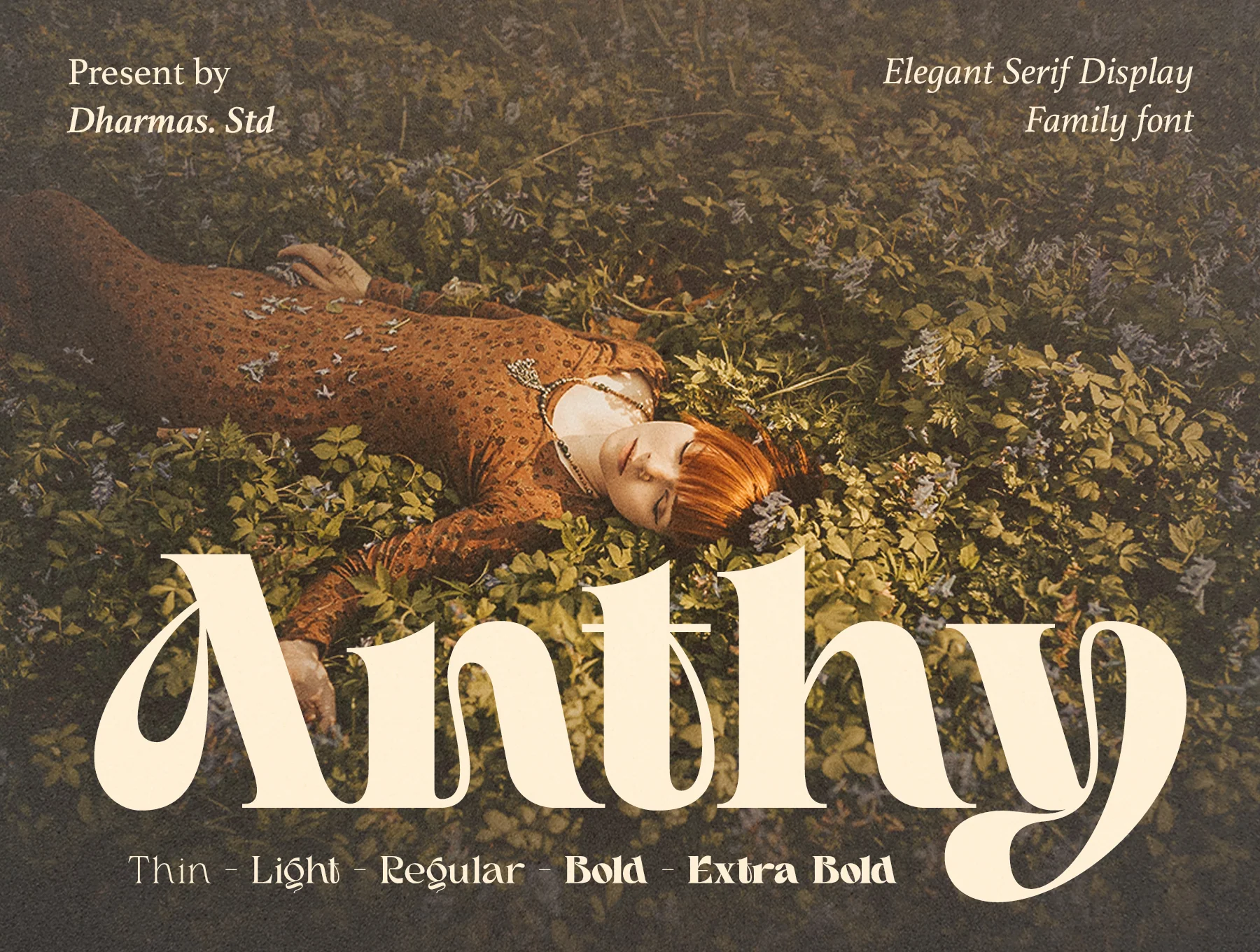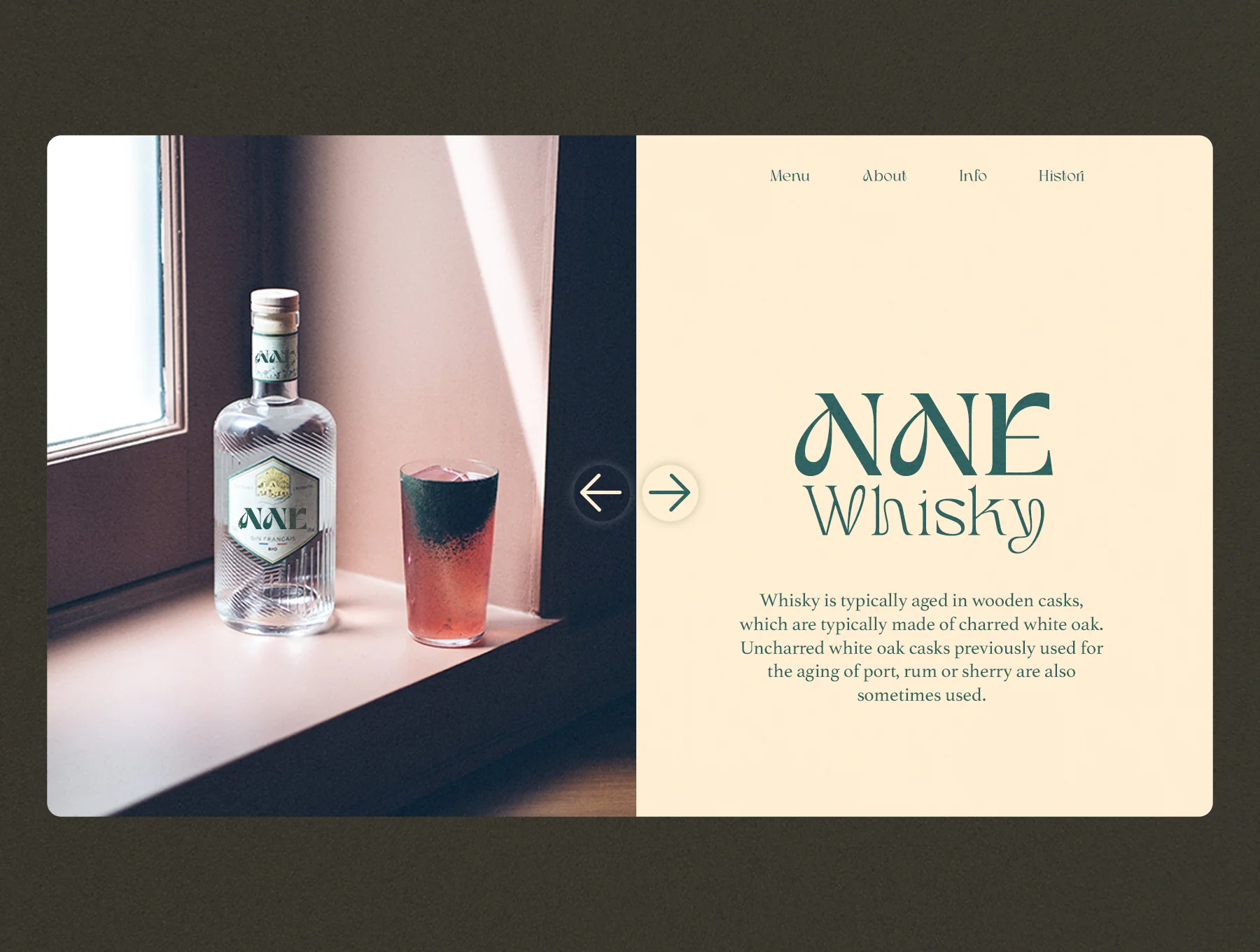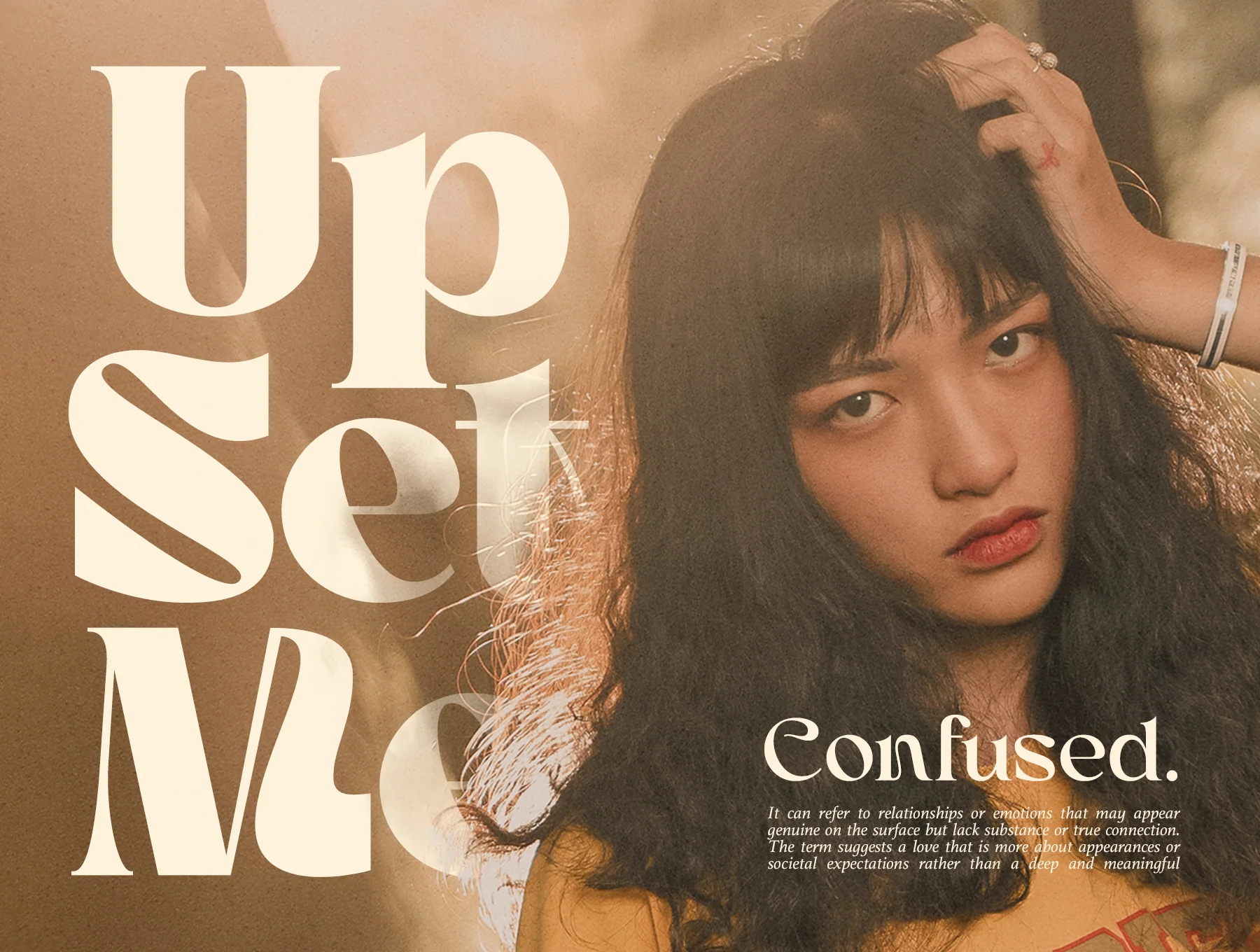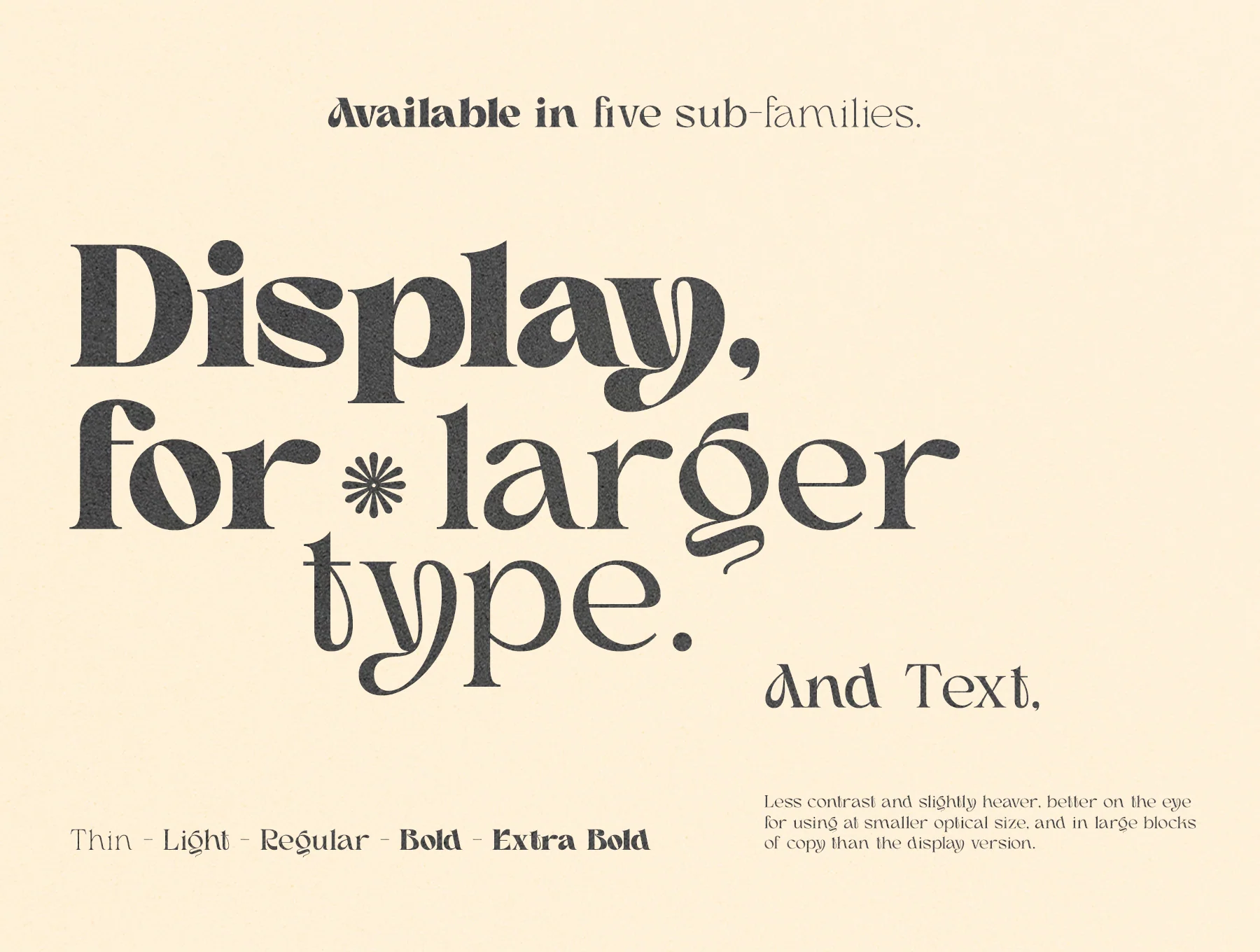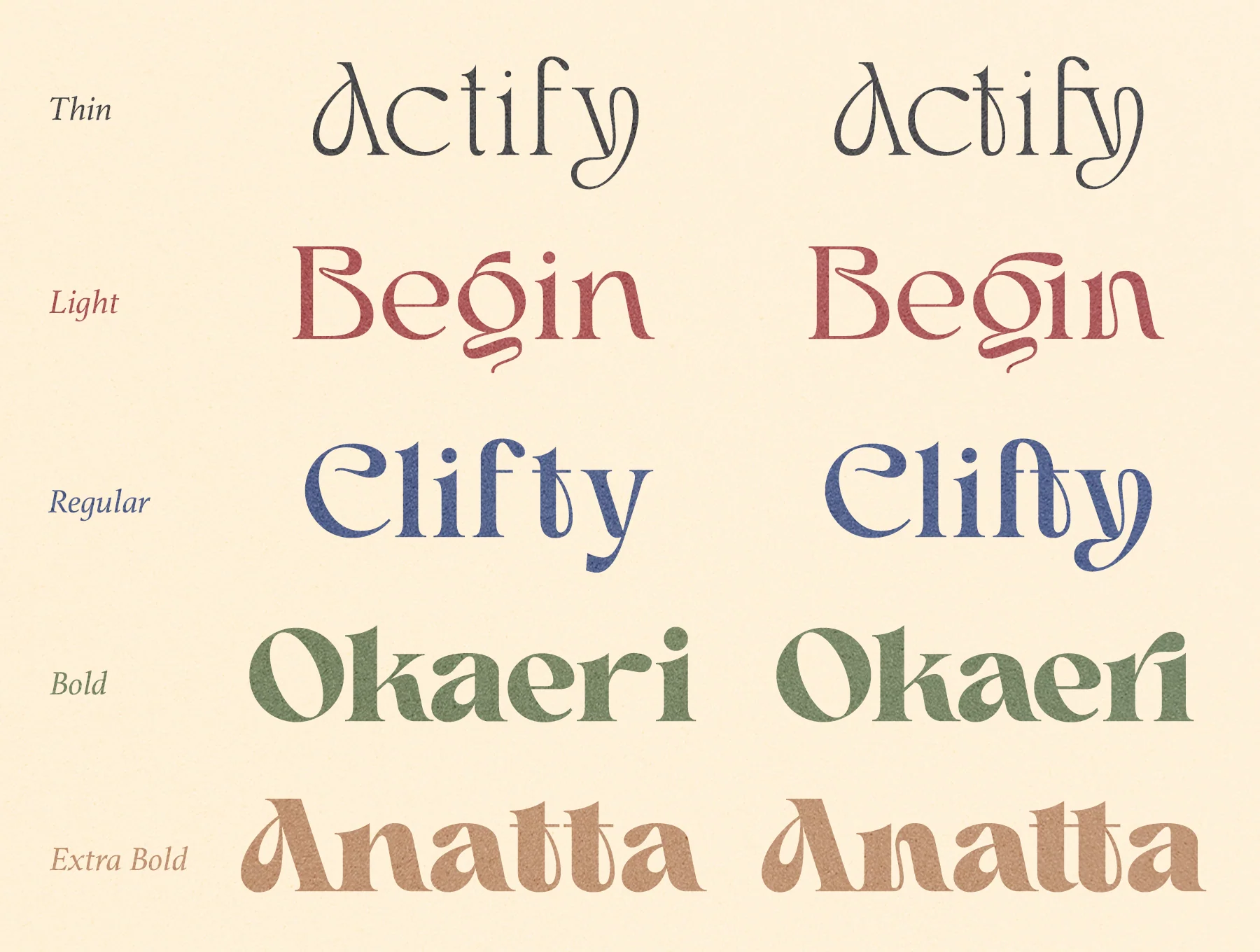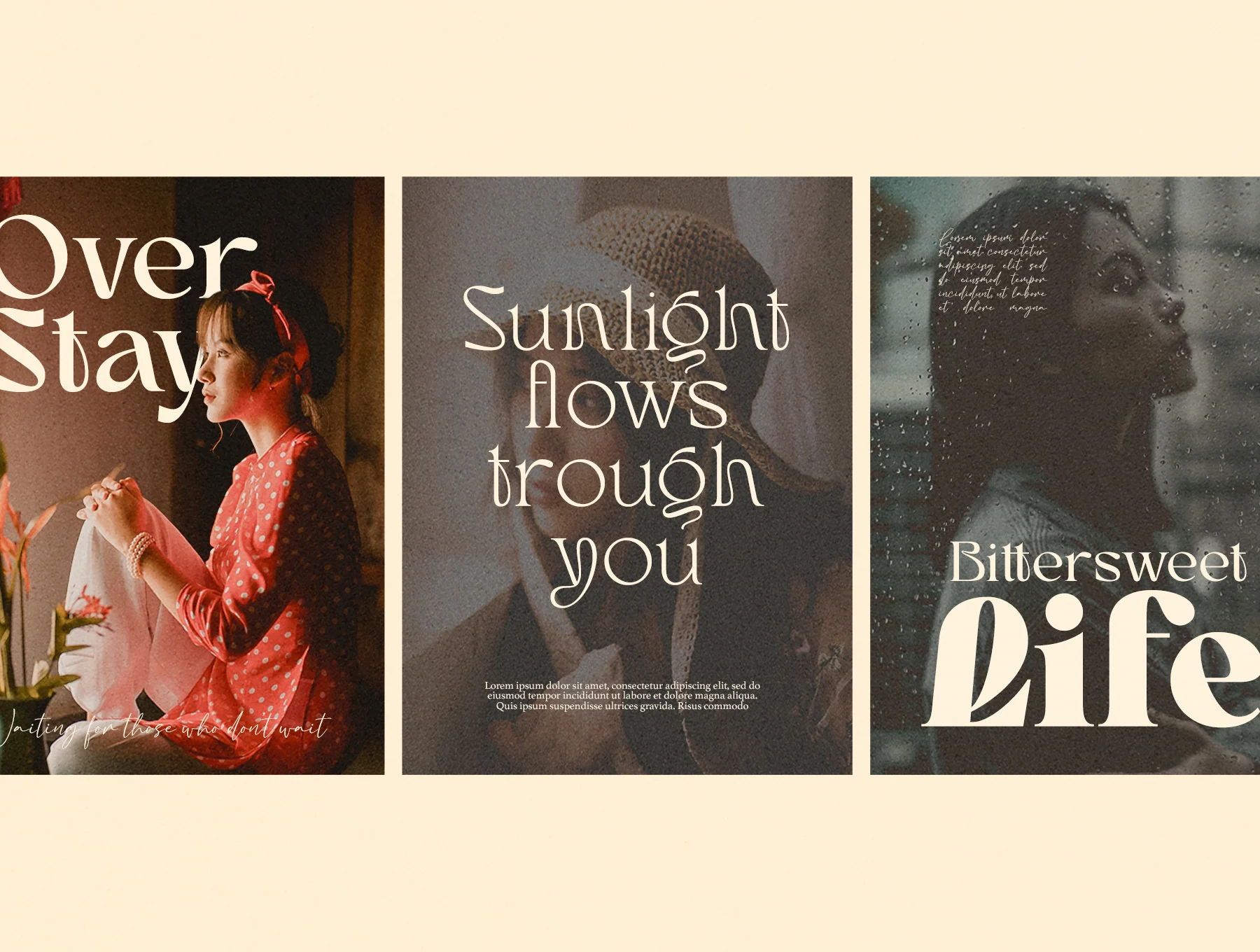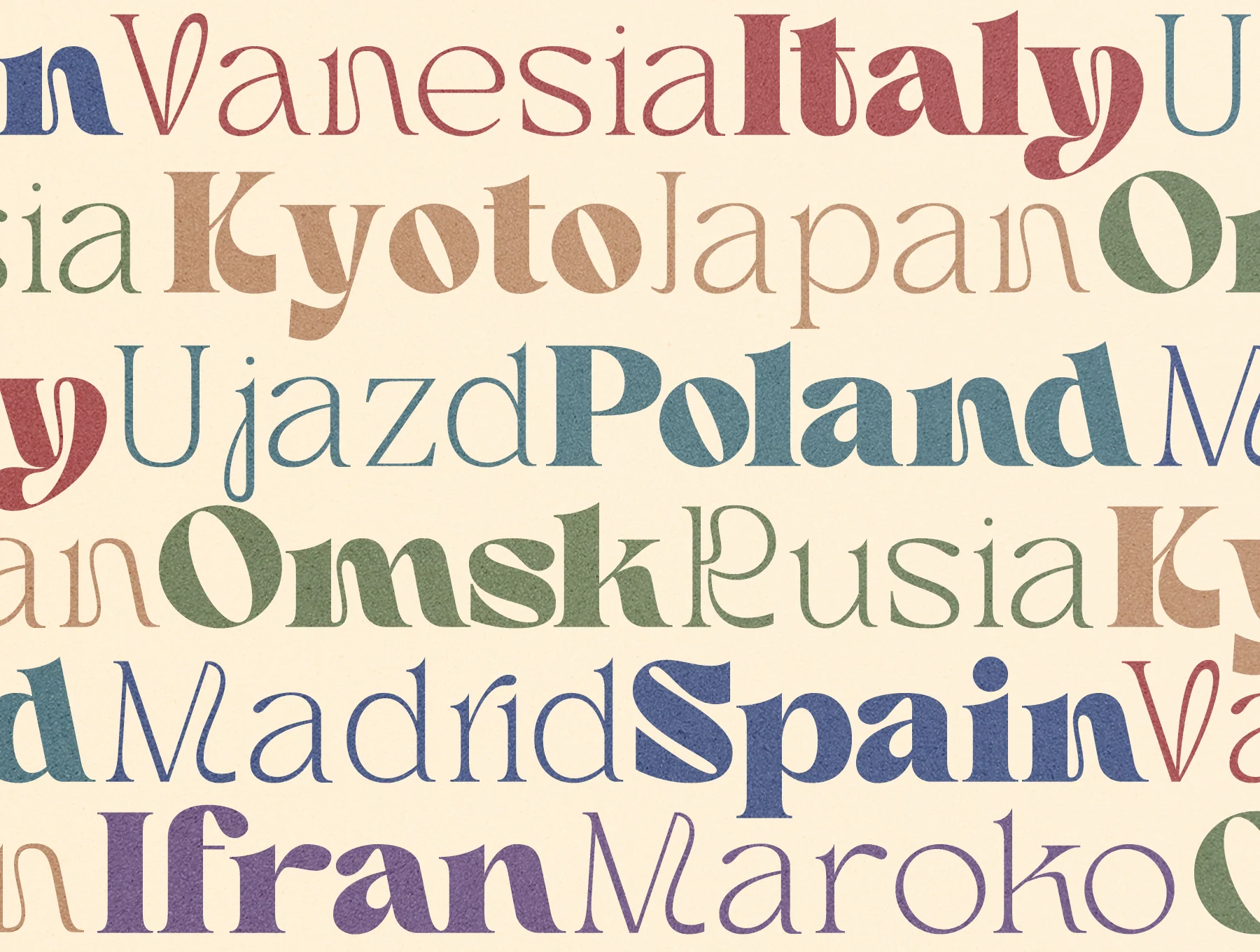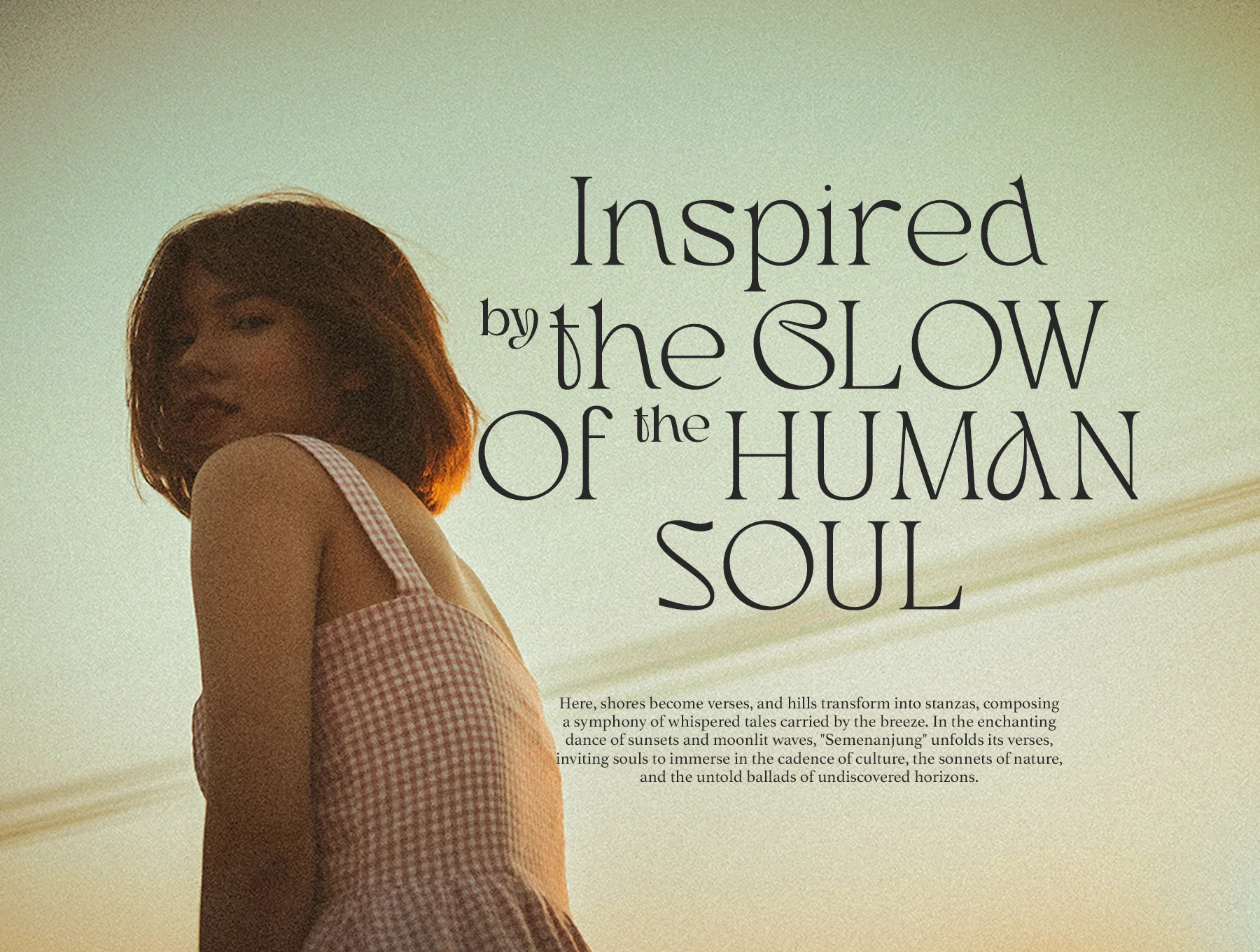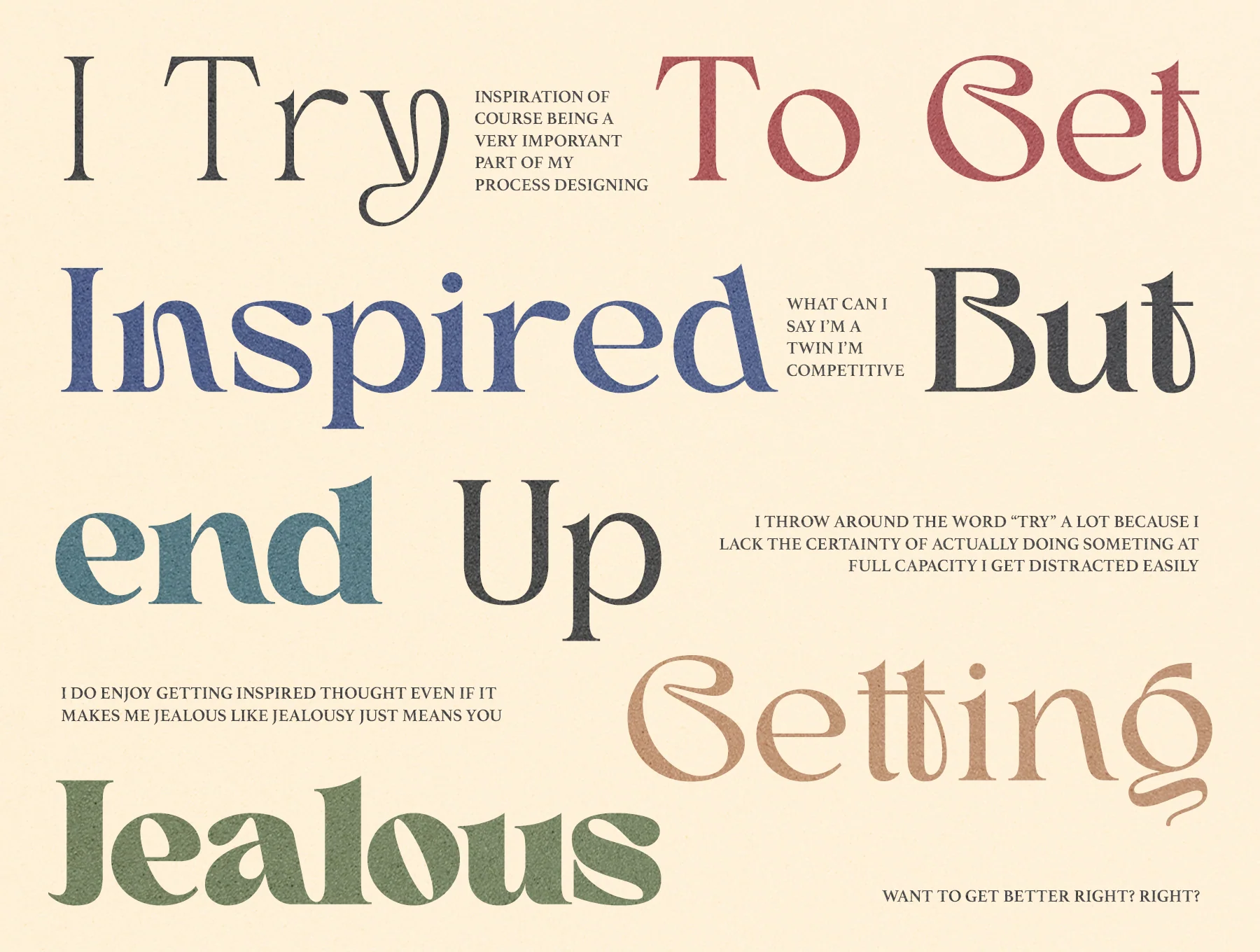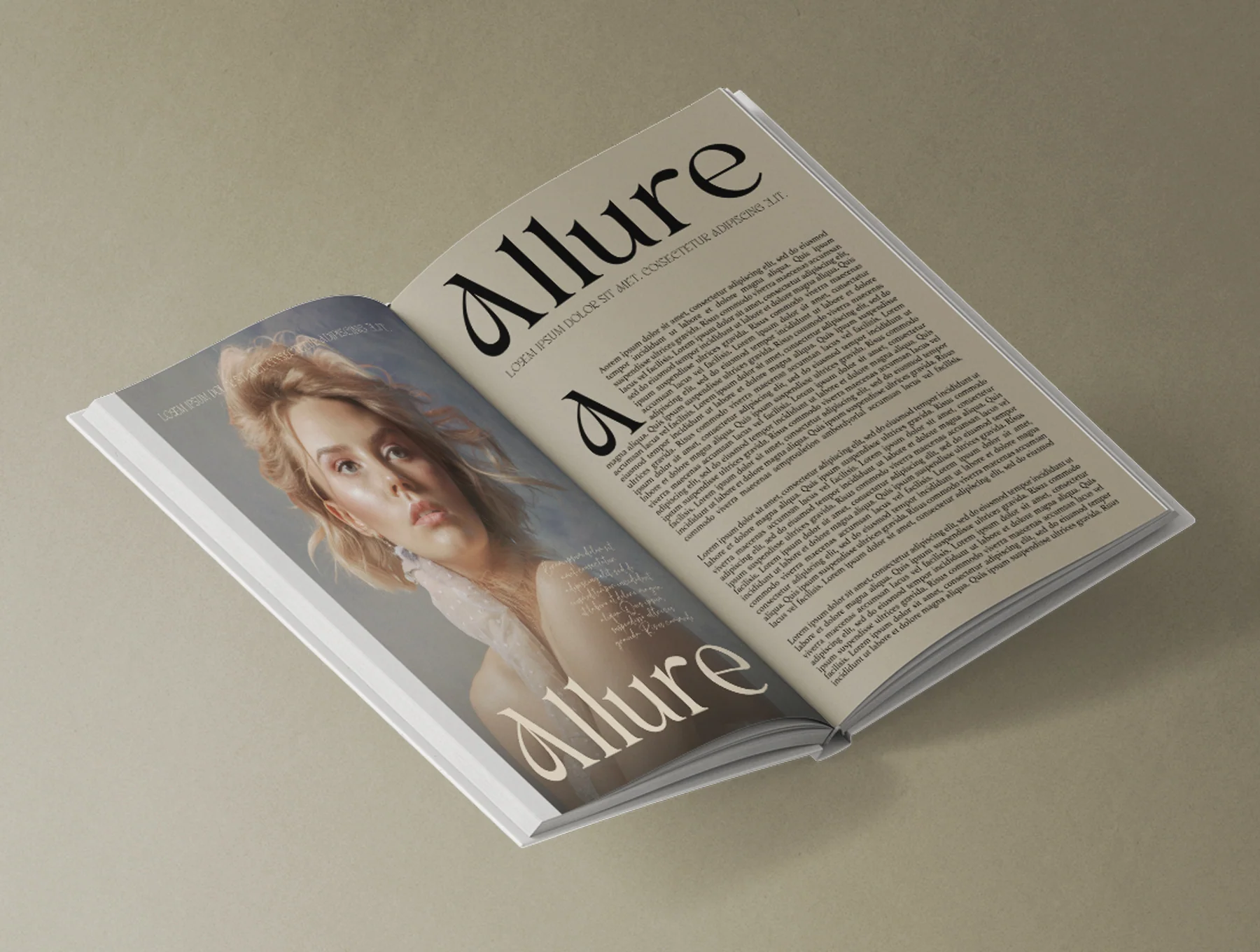
Anthy - Modern Decorative Family Font
Anthy is a brand display serif with distinctive letterforms
Available in Thin, Light, Regular, Bold, ExtraBold
Anthy is a modern serif family with tight, 80s and 90s-inspired details, built for a stylish return. It includes 5 weights from Thin to Extra Bold, plus 64 alternates and ligatures for headlines, logos, UI, magazine copy, and product text. Formats: TTF, OTF, WOFF, WOFF2. PUA encoded and widely supported.